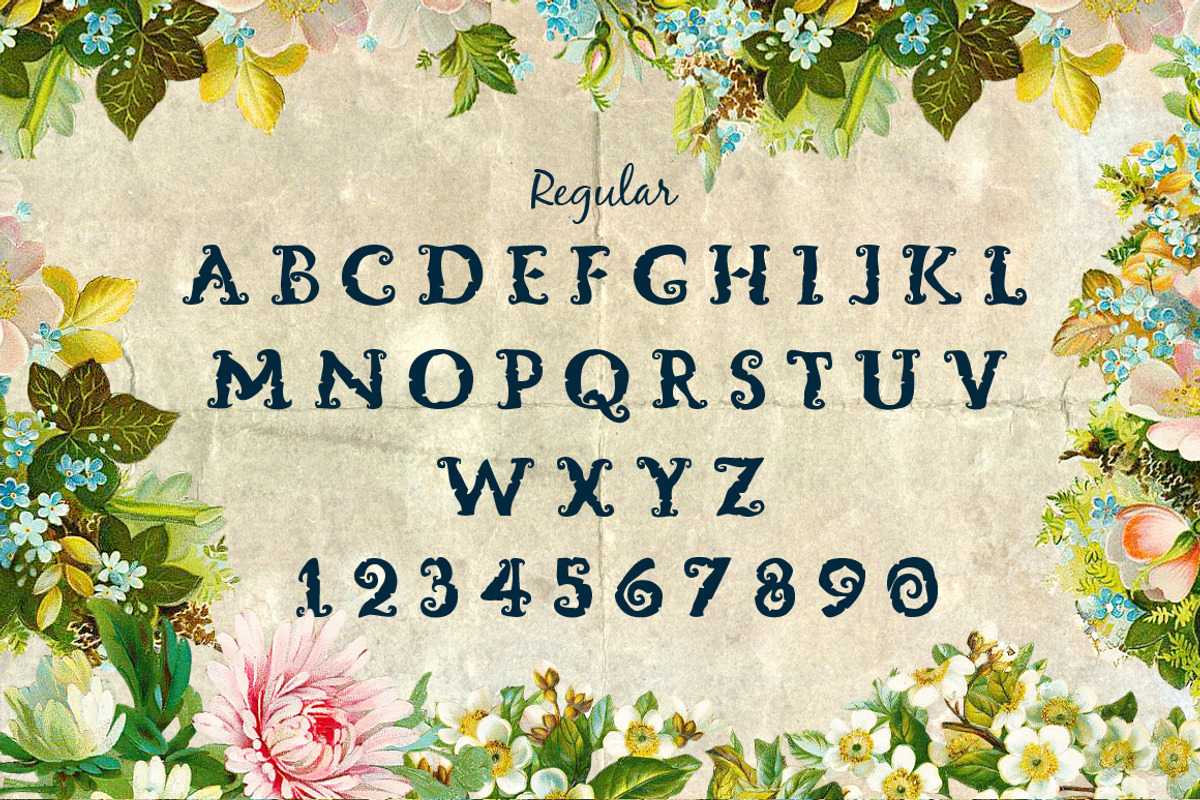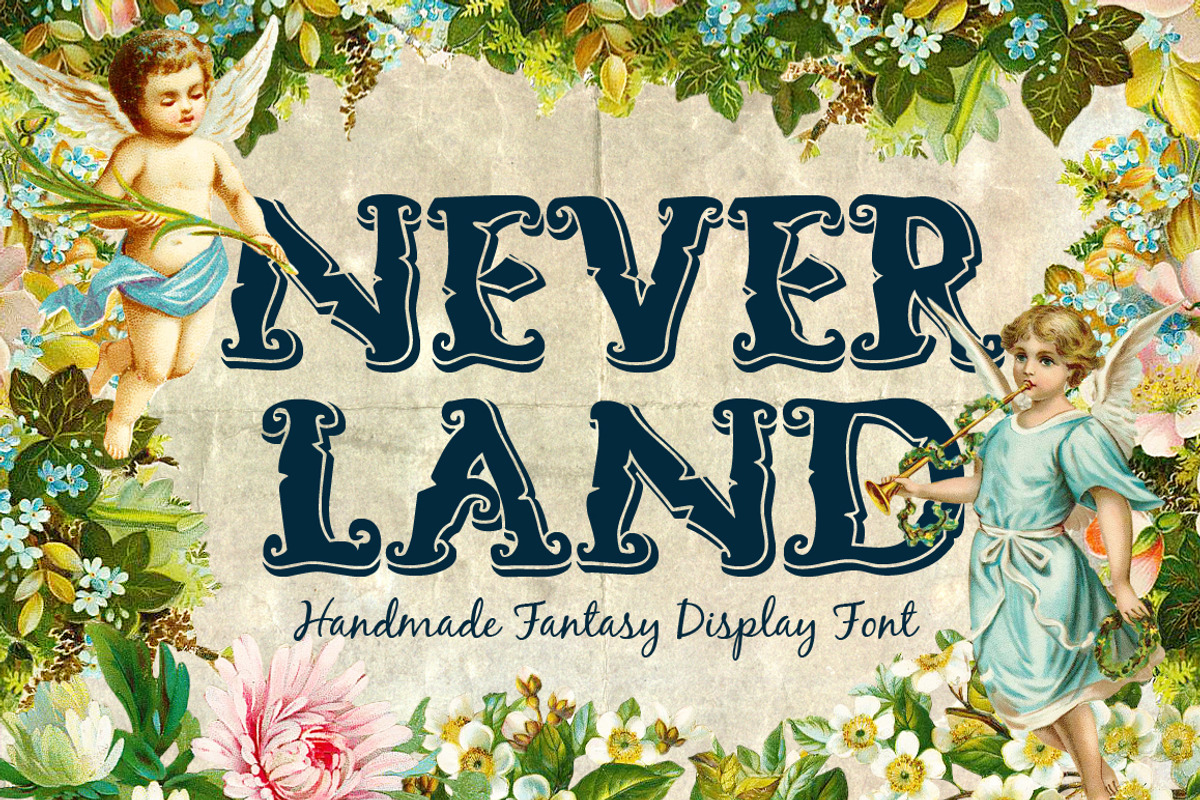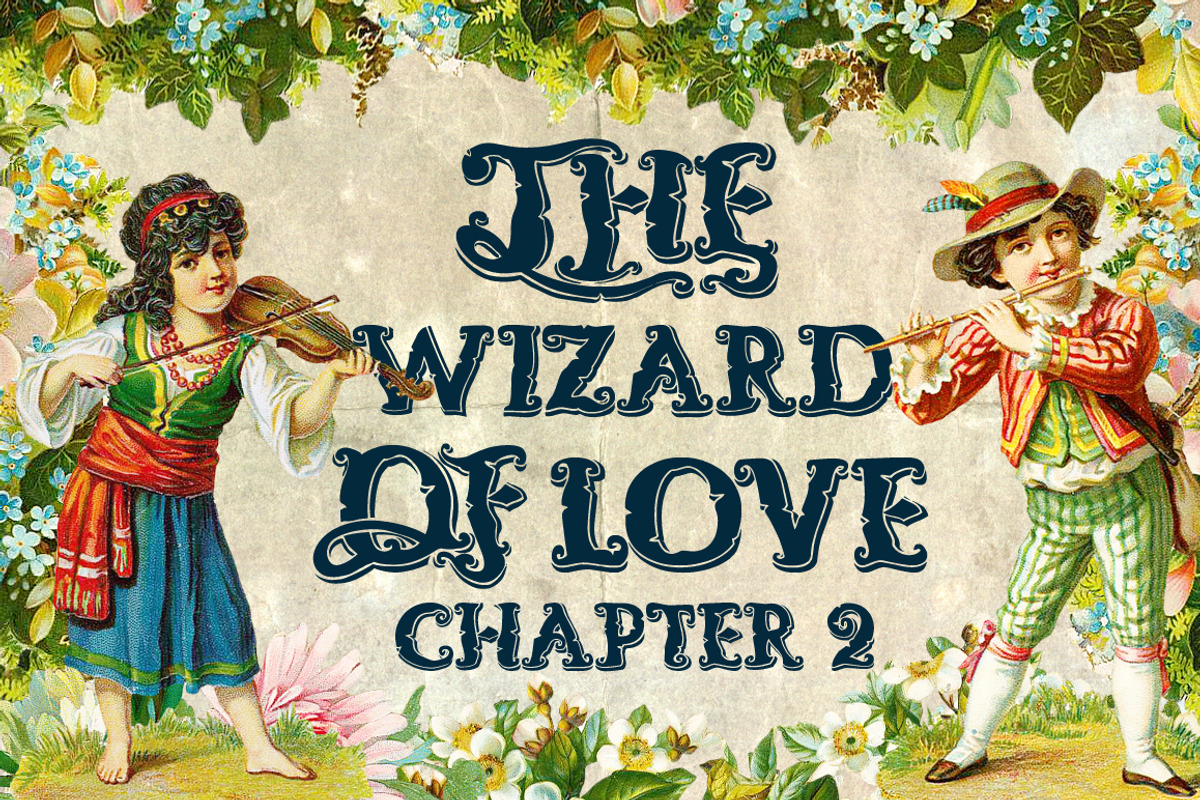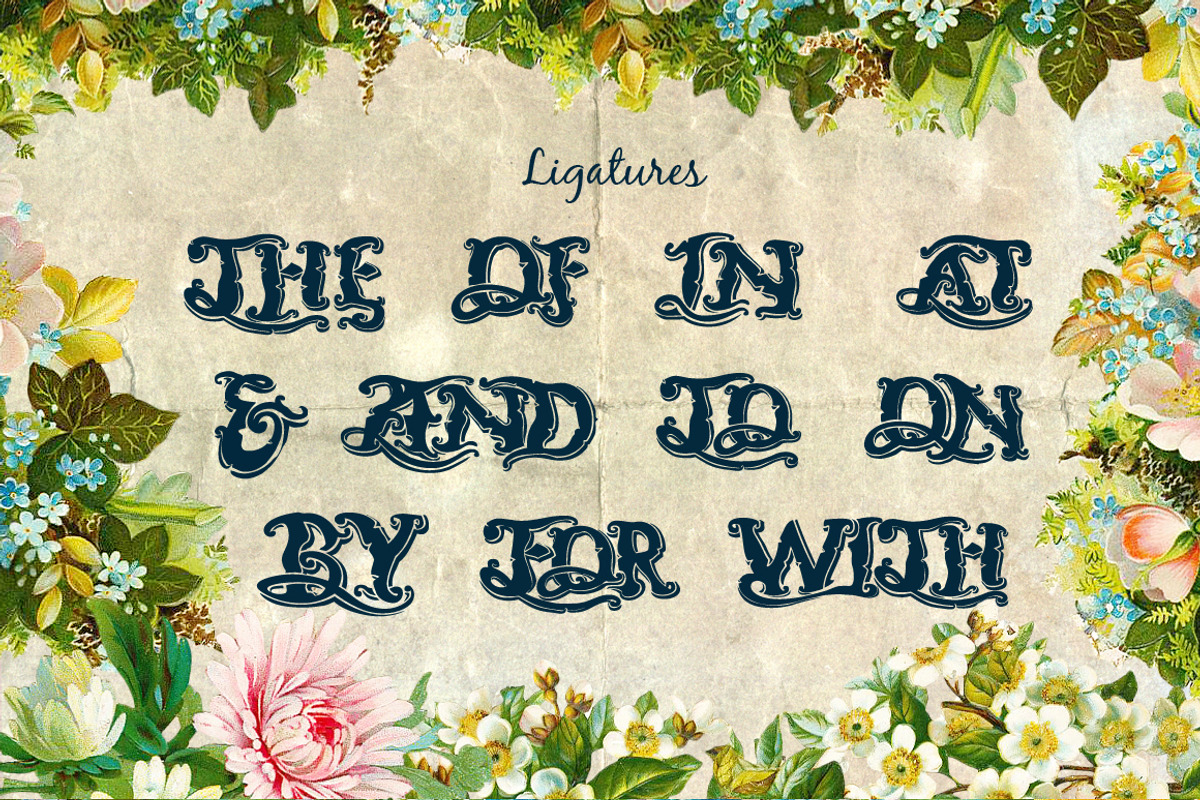
Neverland Handmade Font
Neverland Handmade Font by TSV Creative is a font selected for branding, posters, packaging, typography.
- Ligatures including : The, Of, In, At, And, To, On, By, For, With.
Why Neverland Handmade Font is worth a look
Neverland Handmade Font by TSV Creative fits naturally into Branding, posters, packaging, typography.